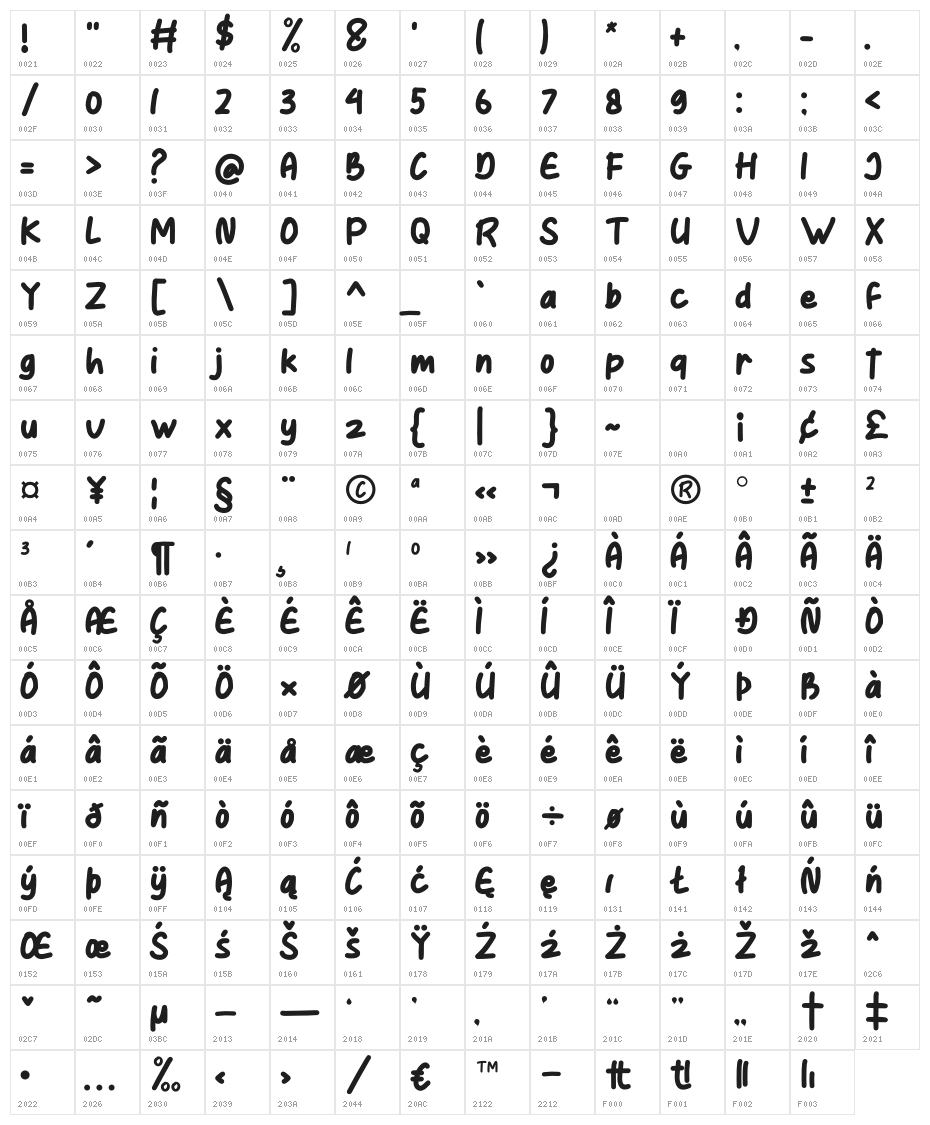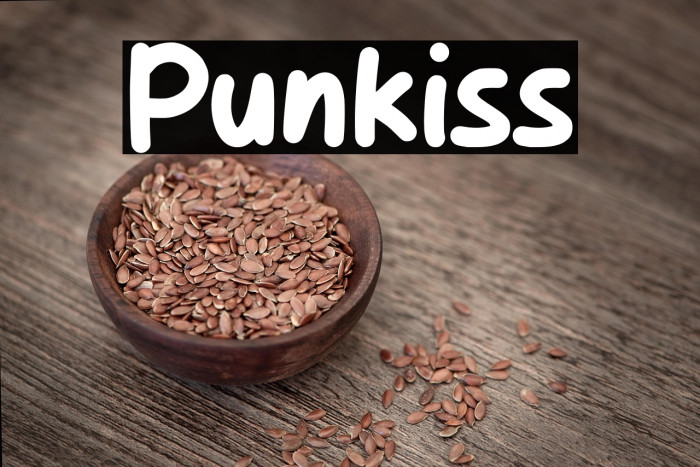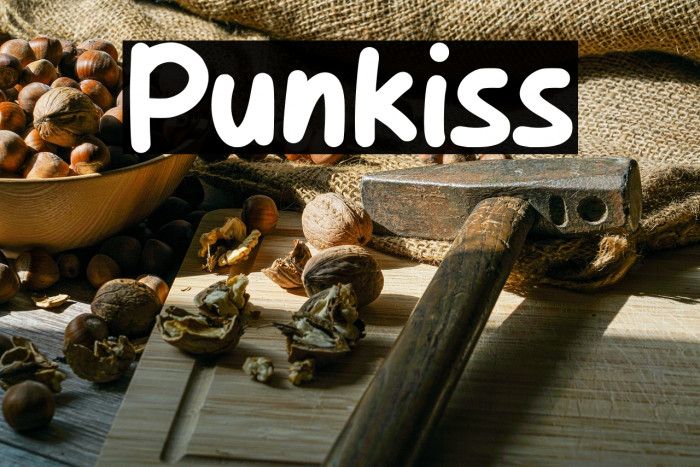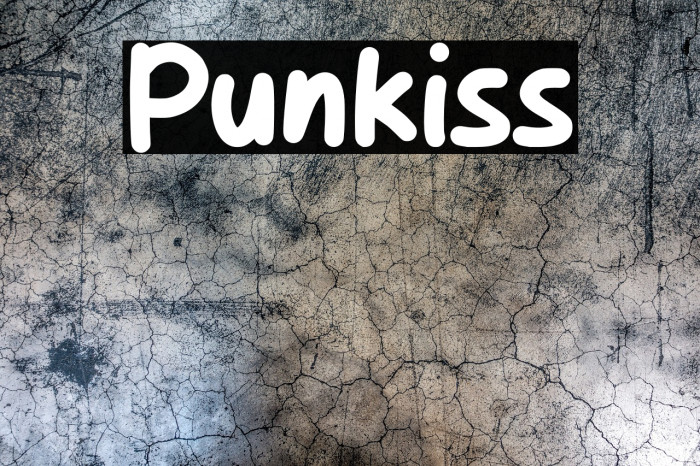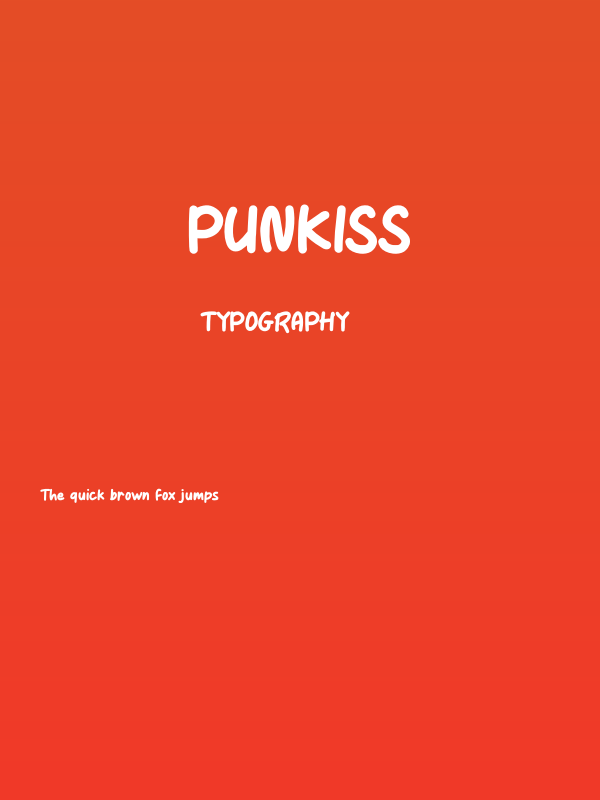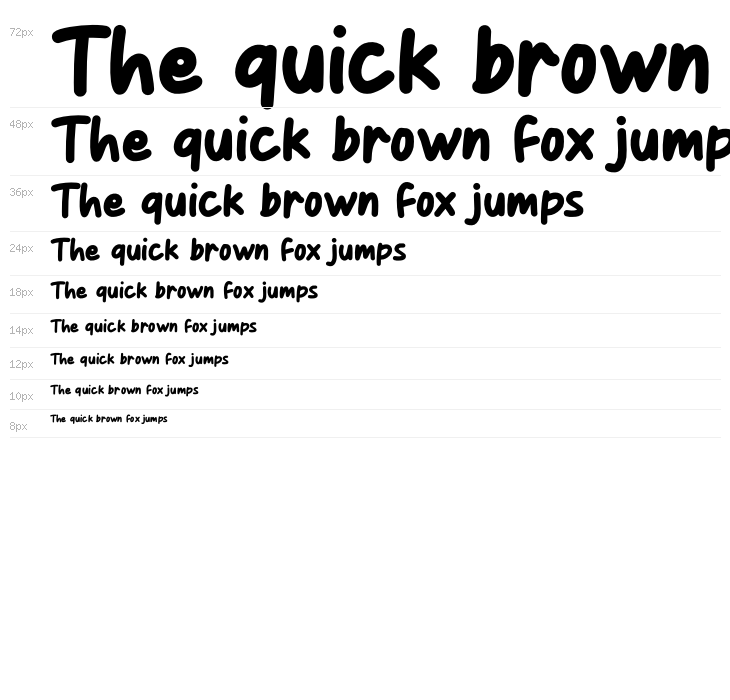
Punkiss Font
Punkiss Description
This font features a bold, playful style with a handwritten appearance. The characters are rounded and slightly irregular, giving it a casual and friendly feel. The uppercase and lowercase letters maintain a consistent thickness, contributing to a cohesive look. The numbers and special characters follow the same design principles, ensuring uniformity across all glyphs. The font's informal nature makes it suitable for projects that require a personal touch or a sense of whimsy.
| Overall Style | Playful, Casual |
| Use Case | Headlines, Logos, Informal Text |
| Proposed Projects | Ideal for children's books, greeting cards, playful branding, and casual invitations. |